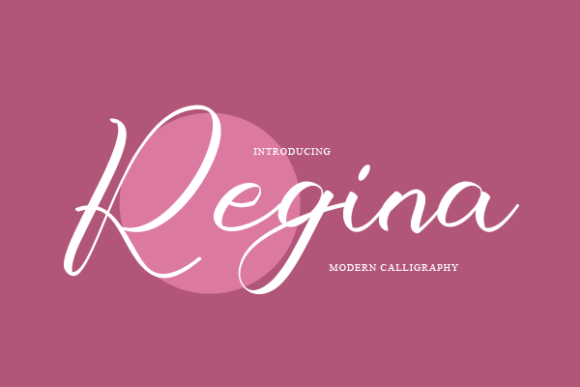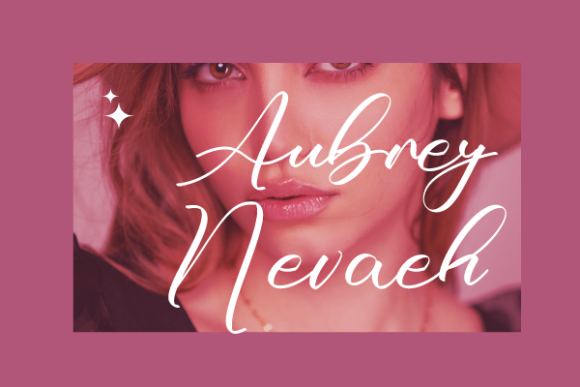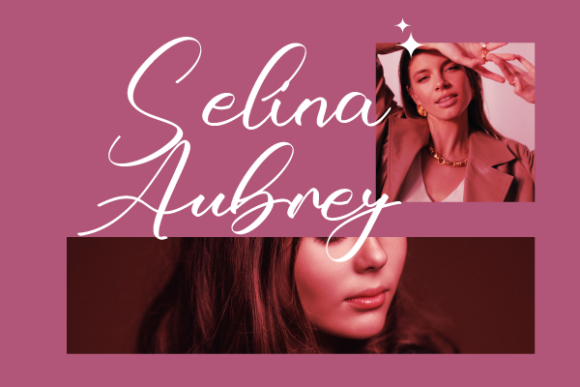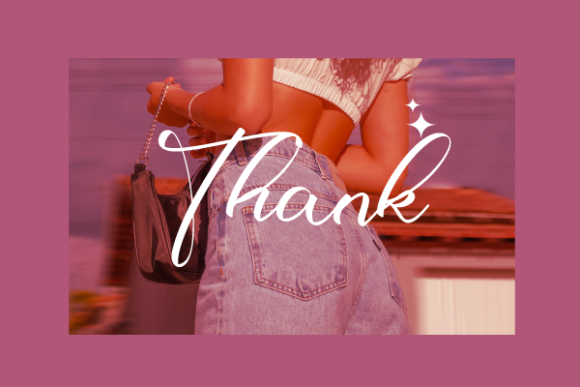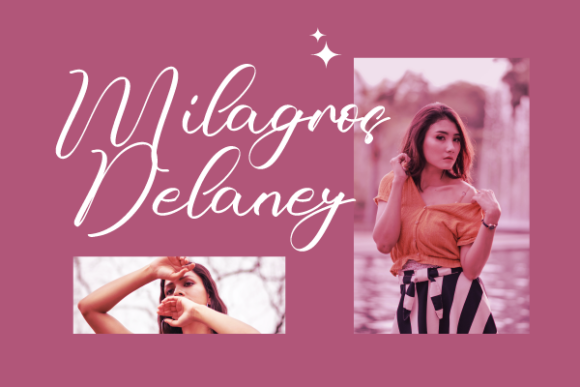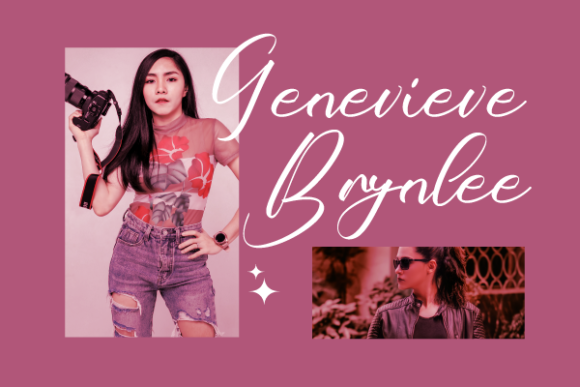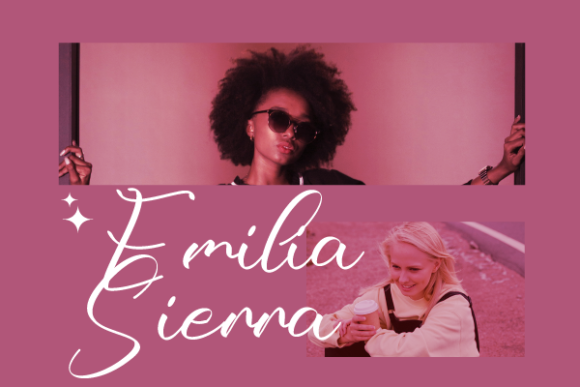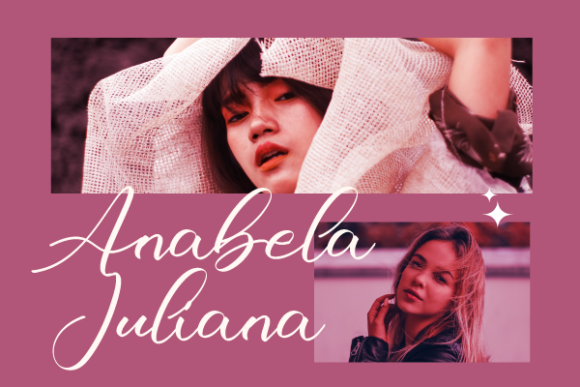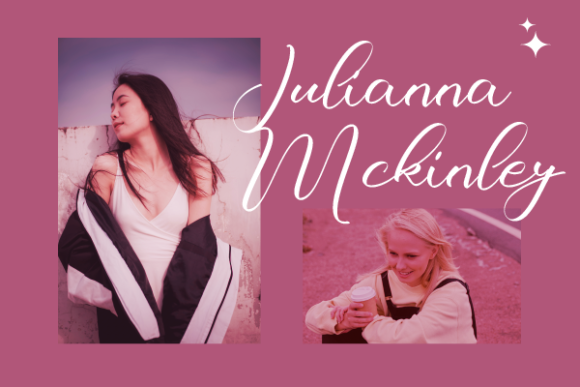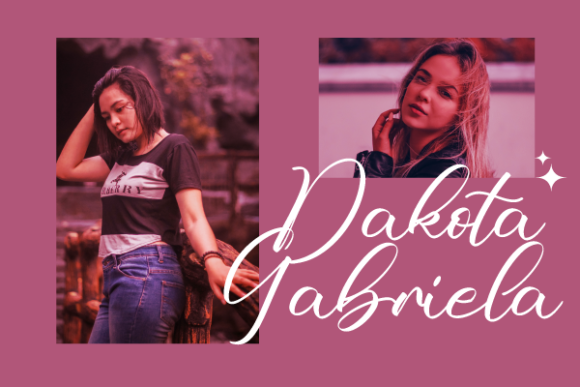
Regina Font
About Regina Font
Regina is a neat and fashionable script font. You can use it for various projects, such as blog posts, logos, branding, ads, invitations, greeting cards, planners, photo albums, decorations, and much more.